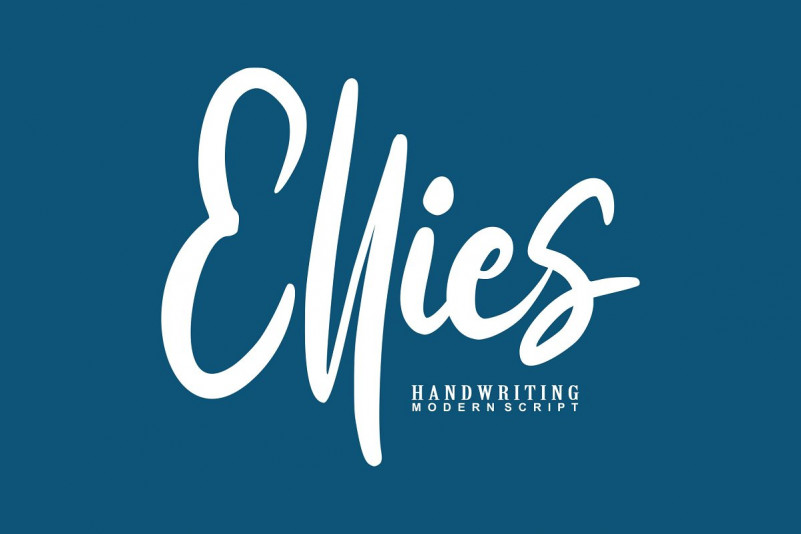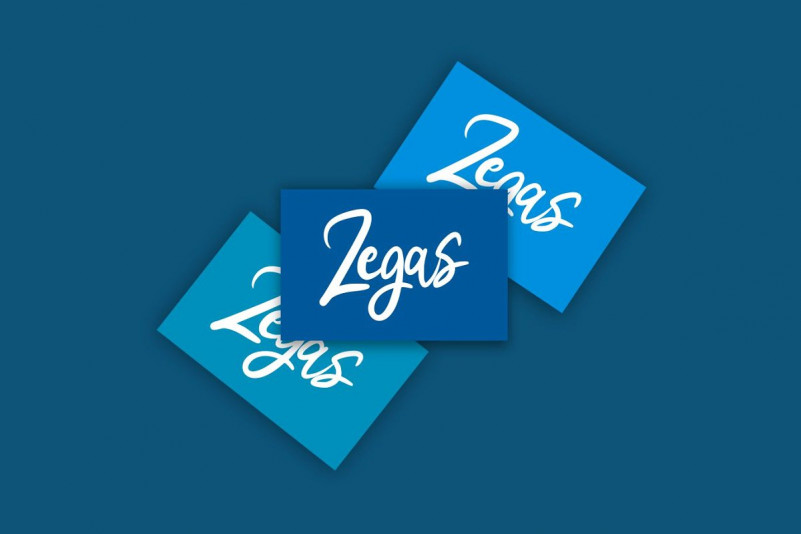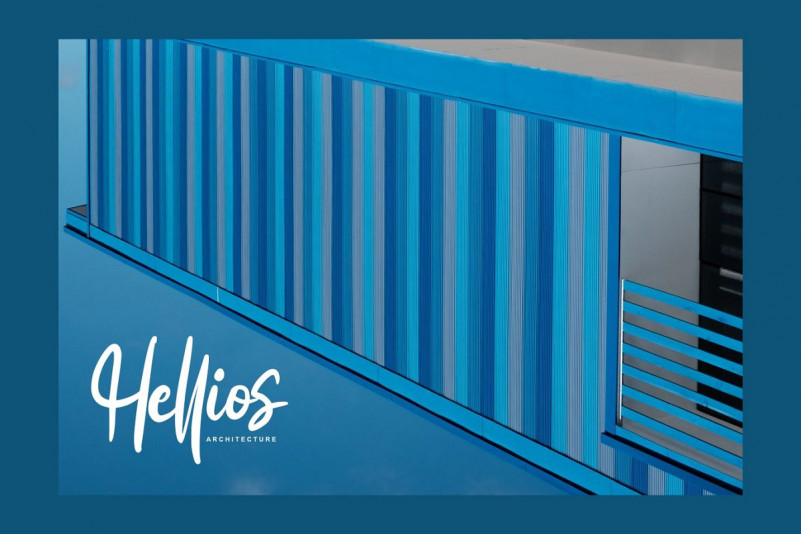
Ellies Font
Ellies | Handwriting Modern Script with a calligraphy style, So beautiful on invitation like greeting cards, branding materials, business cards, quotes, posters, and more!